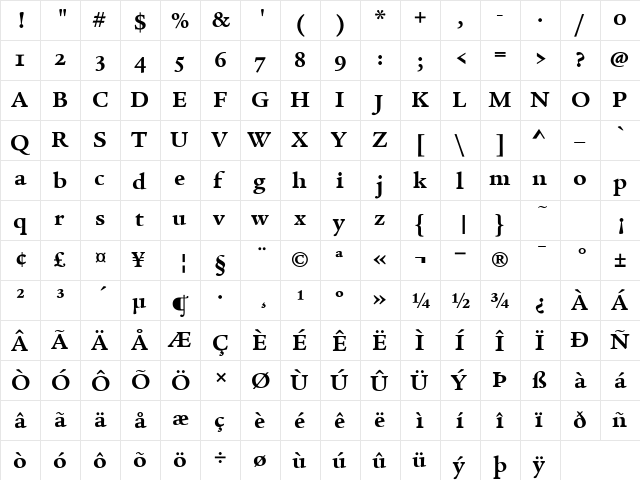
LegacySerifITCOS Bold Font Preview
LegacySerifITCOS Bold
LegacySerifITCOS Bold Font Details
Design Context for LegacySerifITCOS Typeface
LegacySerifITCOS brings classic typographic sensibility to the table — its serifs and measured letterforms reflect centuries of print heritage. Its bold stroke weight gives it real presence on the page.
Pro Tip: Set LegacySerifITCOS with slightly loose tracking in headlines to let each letterform's detail read clearly at display sizes.